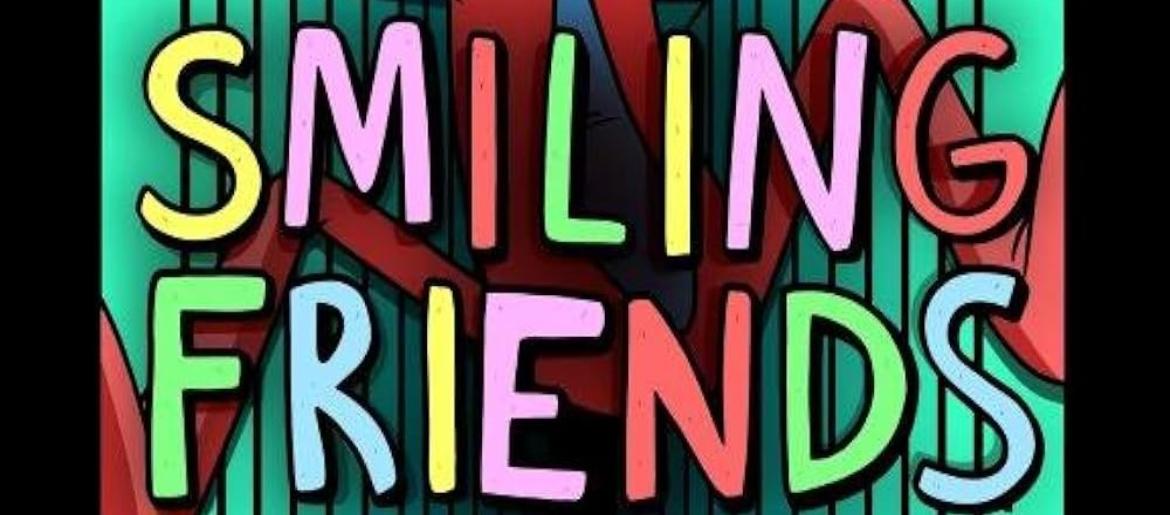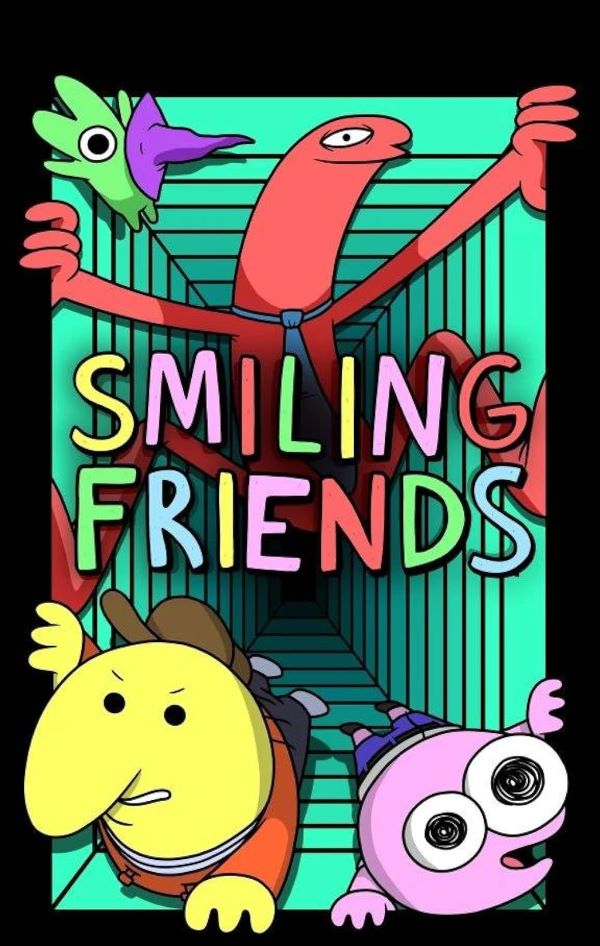
Smiling Friends Font
Smiling Friends font features a custom-designed typeface that captures the show’s quirky, offbeat humor through playful, hand-drawn letterforms with irregular edges and comedic character. While the original title uses proprietary lettering, a dedicated Reddit user (eb_cool_teehee) faithfully re-created the font, making it accessible to fans. The font’s deliberately crude yet charming style perfectly embodies Smiling Friends’ irreverent animation aesthetic and surreal storytelling, reflecting the show’s mission of spreading joy through bizarre, unpredictable adventures in a cynical world.